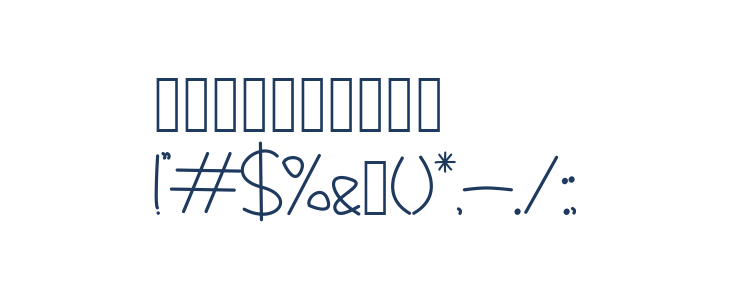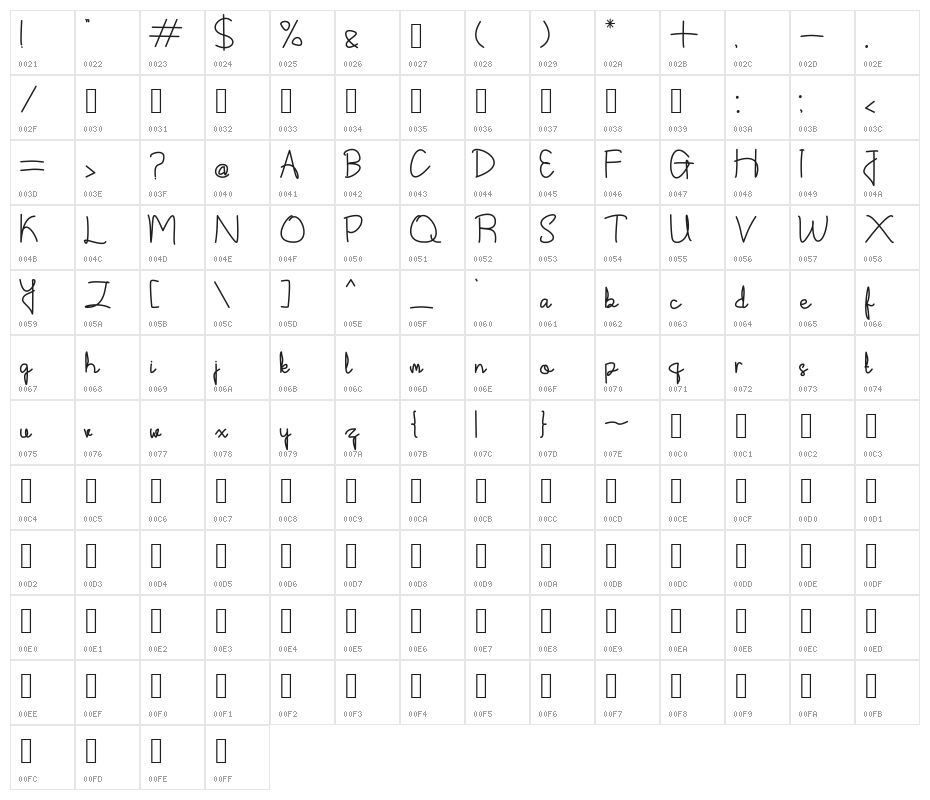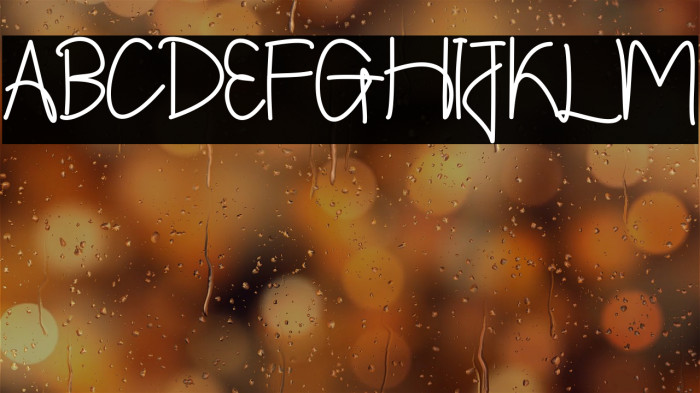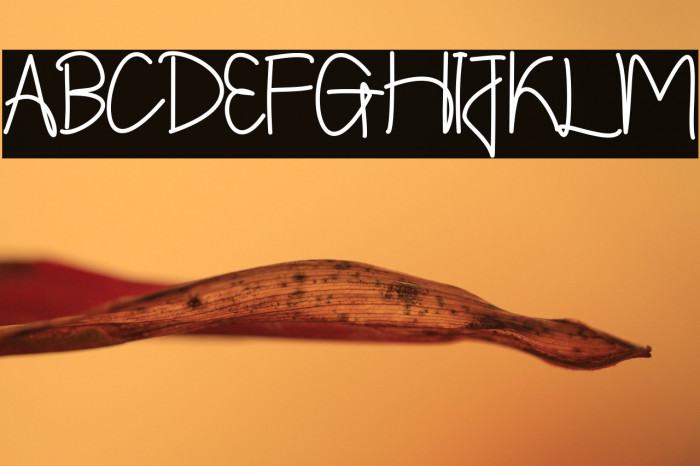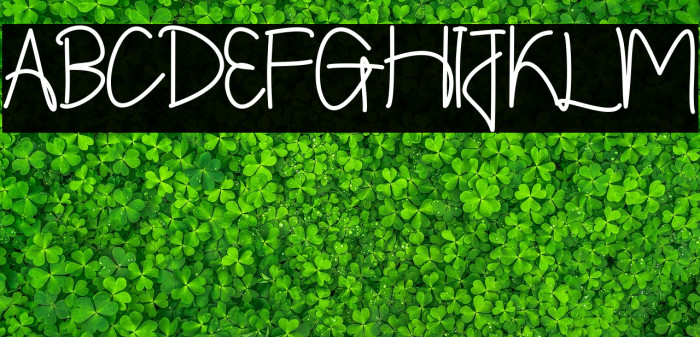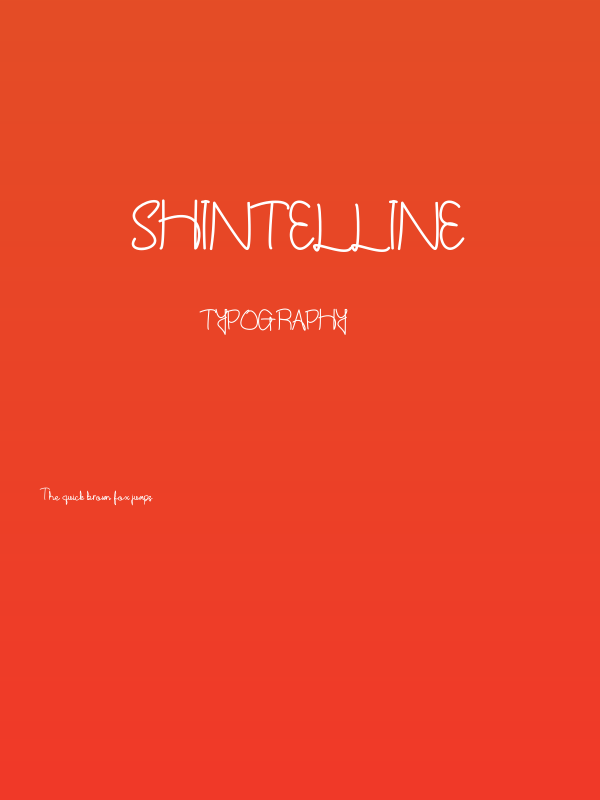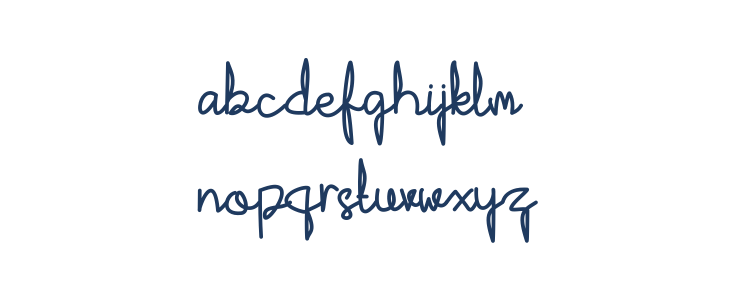
Shintelline Font
Shintelline Description
This font features a playful and casual handwritten style, characterized by its flowing and slightly irregular strokes. The uppercase letters are tall and narrow, with a whimsical flair that adds a touch of personality. The lowercase letters maintain a consistent style, with rounded edges and a smooth flow that mimics natural handwriting. The numerals and special characters are designed to match the overall aesthetic, providing a cohesive look across all elements. This font's informal and friendly appearance makes it suitable for creative and personal projects.
Overall StyleCasual, Playful
Use CaseLogos, Invitations, Greeting Cards
Proposed ProjectsIdeal for greeting cards, invitations, personal branding, and creative projects that require a friendly and approachable feel.